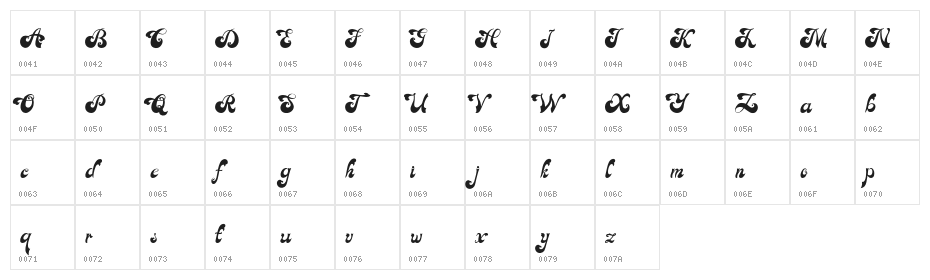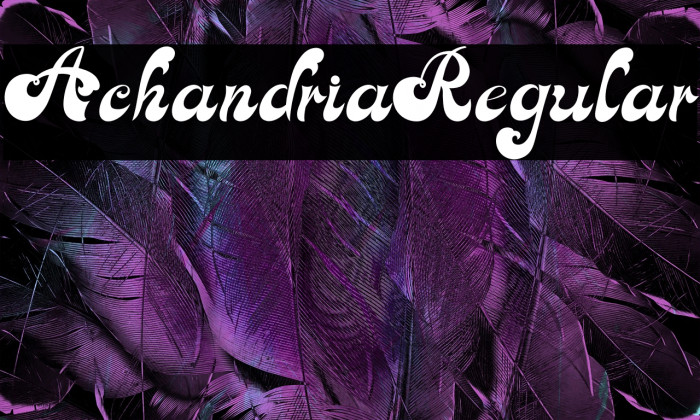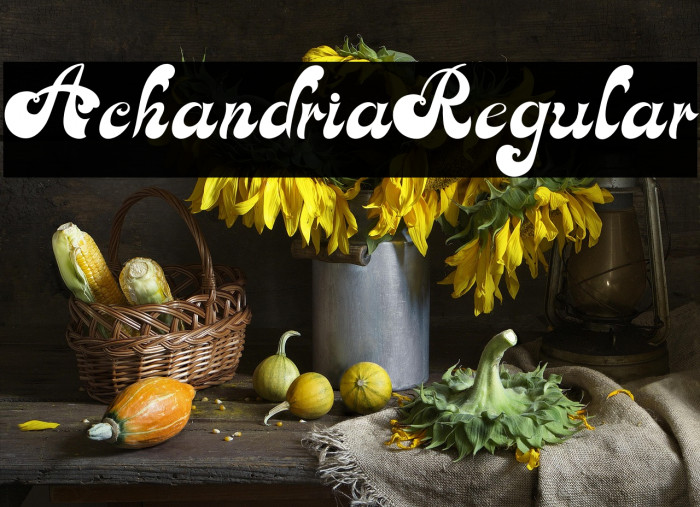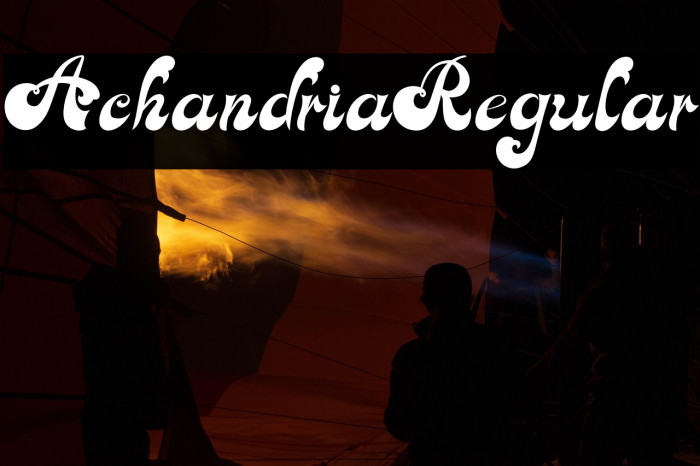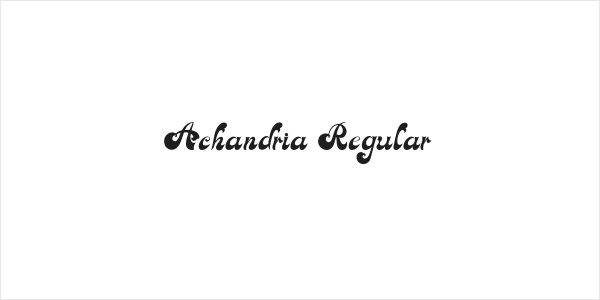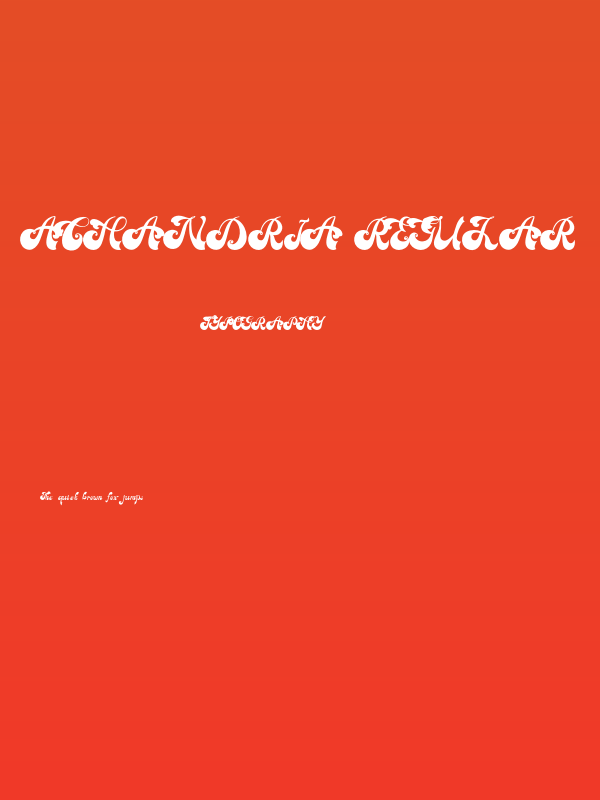
Achandria-Regular Font
Achandria-Regular Description
This font features an ornate and decorative style with intricate curls and flourishes that give it a whimsical and artistic appearance. The uppercase letters are bold and dramatic, with exaggerated curves and loops that create a sense of movement and elegance. The lowercase letters maintain the same decorative flair, with a slightly more subdued presence, making them suitable for both display and text settings. The numbers and special characters are equally stylized, ensuring a cohesive look across all elements. This font is ideal for projects that require a touch of sophistication and creativity, such as invitations, branding, and artistic designs.
| Use Case | Headlines, Logos, Artistic designs |
| Proposed Projects | Ideal for invitations, branding, artistic designs, and decorative projects. |